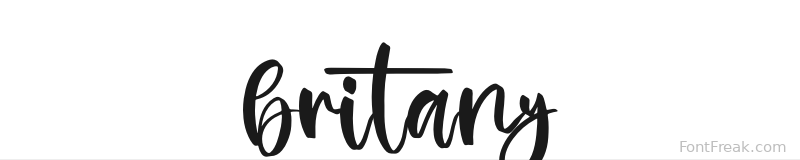
britany
britany Italic
Introducing the Britany font by Perspectype Studio, a stunning handwritten typeface that exudes elegance and charm. Released in 2021, this font is categorized as a script style, perfect for adding a personal touch to your design projects. The Britany font showcases a fluid stroke weight with a graceful contrast that captures the essence of natural handwriting. Its slightly varying thickness creates a dynamic look, while the generous spacing between characters enhances readability and adds an airy feel to the overall design.
The Britany font is an excellent choice for a variety of applications. It shines in wedding invitations, where its romantic curves can set the perfect tone for a special day. Additionally, it works beautifully for greeting cards, allowing messages to feel heartfelt and intimate. Restaurant menus can benefit from its inviting appearance, making dishes sound more appealing. Furthermore, the font is perfect for social media graphics, helping content creators to engage their audience with a stylish flair.
What truly sets the Britany font apart is its unique blend of elegance and approachability. The fluidity of its strokes combined with its decorative flair makes it a standout choice for anyone looking to infuse personality into their work. Whether you're crafting a heartfelt invitation or designing eye-catching promotional materials, the Britany font free download is a valuable asset that will enrich your creative toolkit.